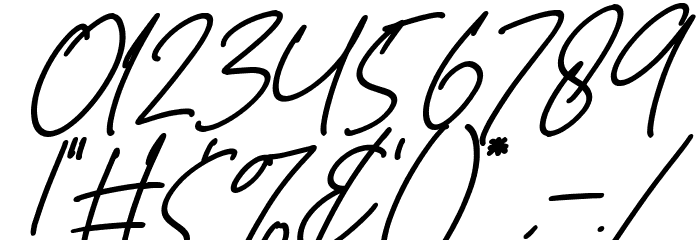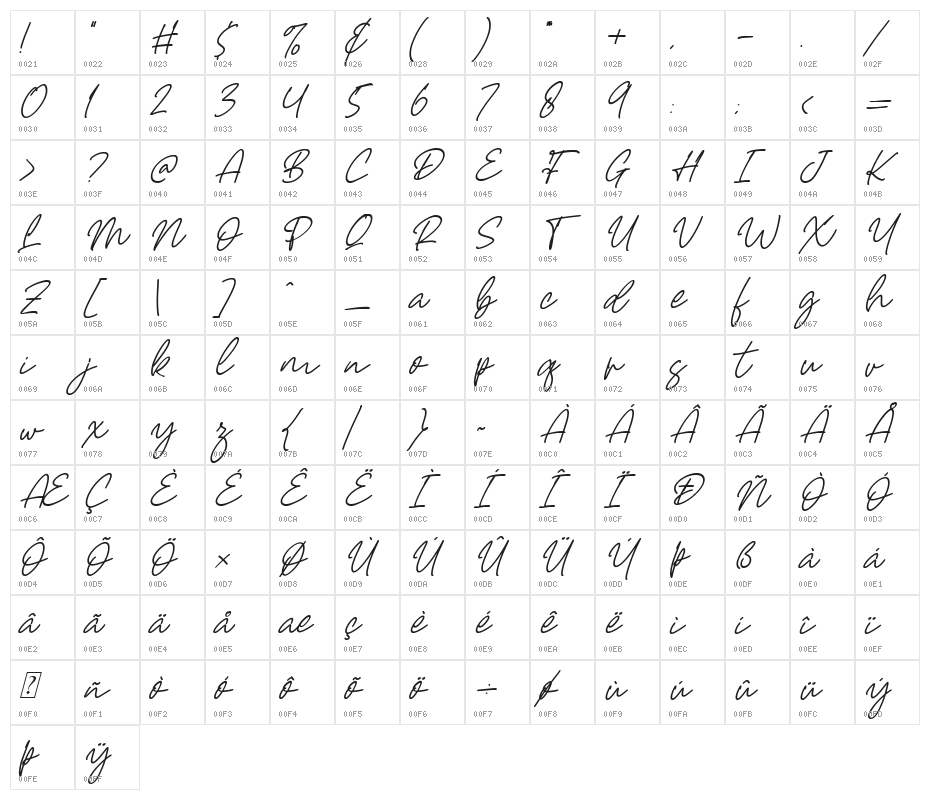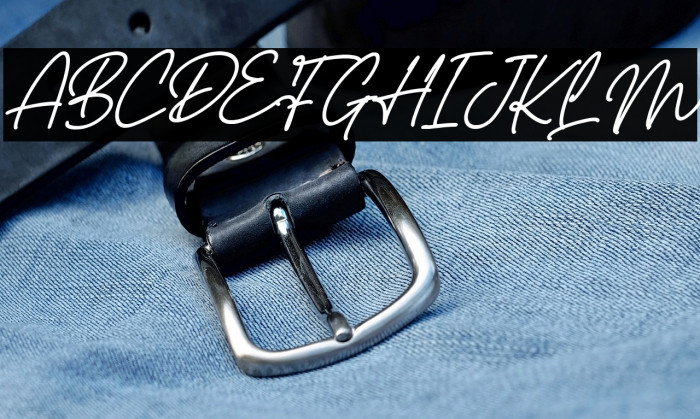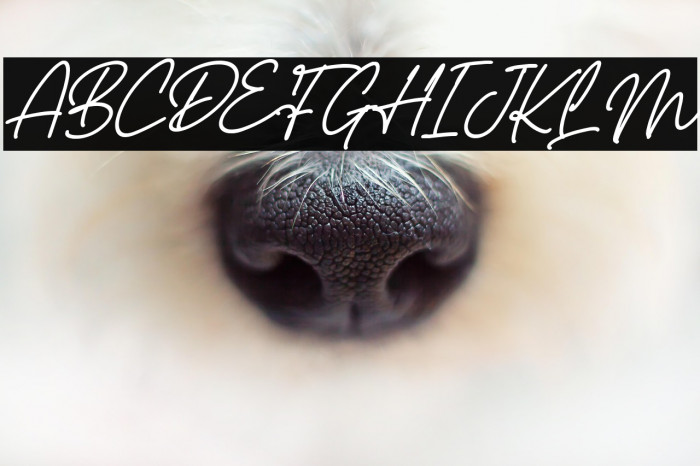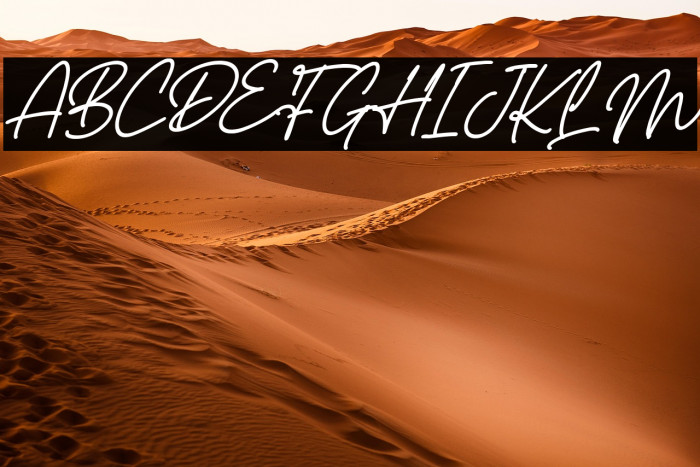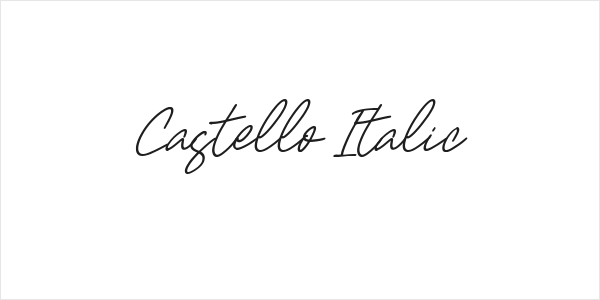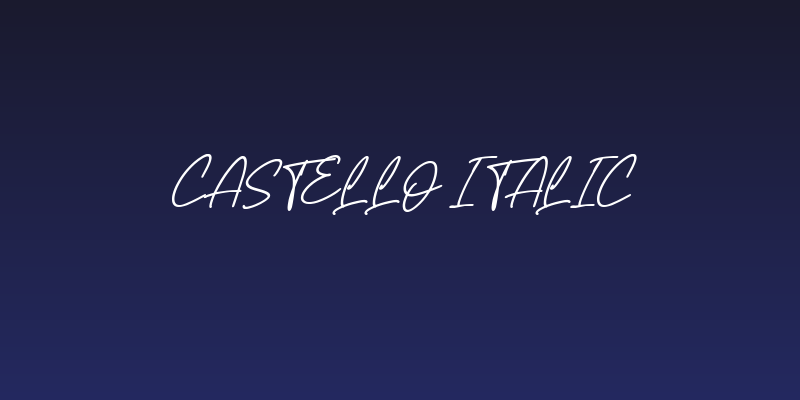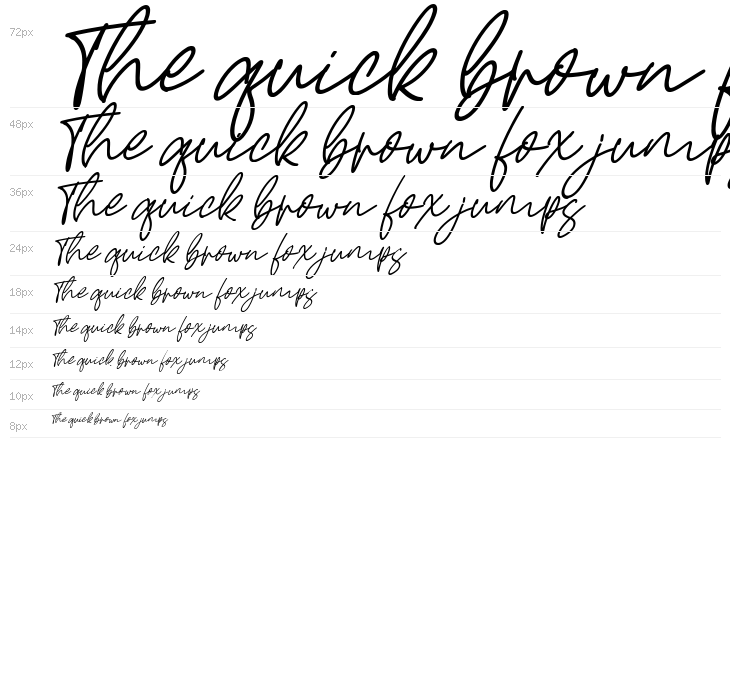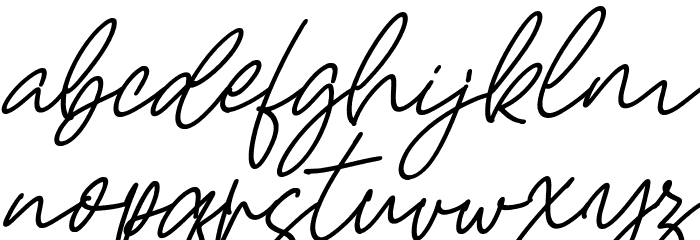
Castello Italic Font
Castello Italic Description
This font exudes a dynamic and elegant handwritten style, characterized by its fluid and connected strokes. The uppercase letters maintain a consistent height, while the lowercase letters exhibit a natural flow with occasional loops and flourishes. The numerals are bold and slightly larger, ensuring readability. Special characters are crafted with the same attention to detail, blending seamlessly with the overall script style. The font's design is both sophisticated and approachable, making it suitable for a variety of creative applications.